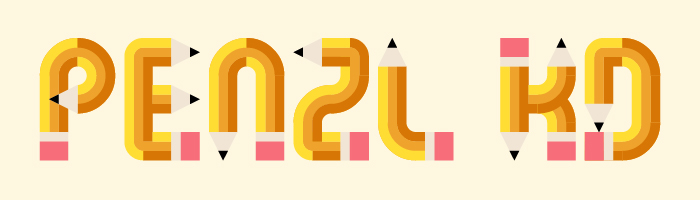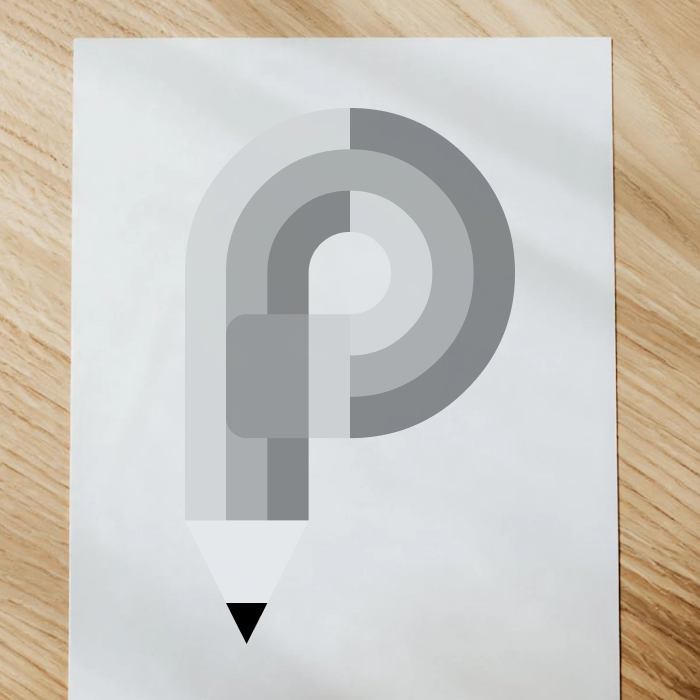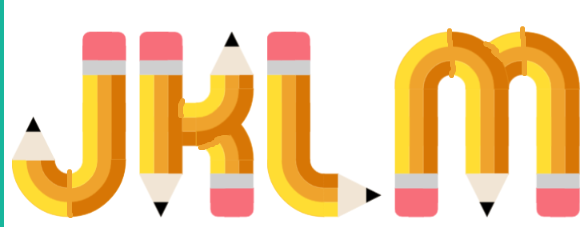
Cute idea. I would consider either the bare wood tad bit darker or thin black outline to it
Must be some flexible pencils cause I tried to make letters with pencils, and they broke everywhere…
These are fontstruct pencils 😅
@Peter: I got 7 layers and I can probably add one for the metallic ring, or maybe use the black
Very cuuute! What a level on this Comp! Good luck.
those pencils do exist
An excellent entry and a fun use of colors~
Beautiful work! Have you tried slightly rounded corners on the eraser?
@four Yeah, I did, but then I took the lazy path :) I should probably round it for a more natural effect though, you're right.
Creative!
Update 29.05.25: Rounded eraser and a metallic ring.
Perfect!
Very fun design!
i wonder if you could do something where the yellow and brown collided, where you could put a thin orange line in between
Nice Font! What Does KD Stand For?
@7V80Y LCP (digitalio-2) Hmm, well that's not quite possible in some parts, only maybe outside of FS.
@OliverAntonio Kassymkulov Design
Some letters aren't working.
this is the pennicil of fonts. :)
I looks normal
The I looked like a pencil
And the Ts too ;)
What if it's useful to draw irl? 🤔